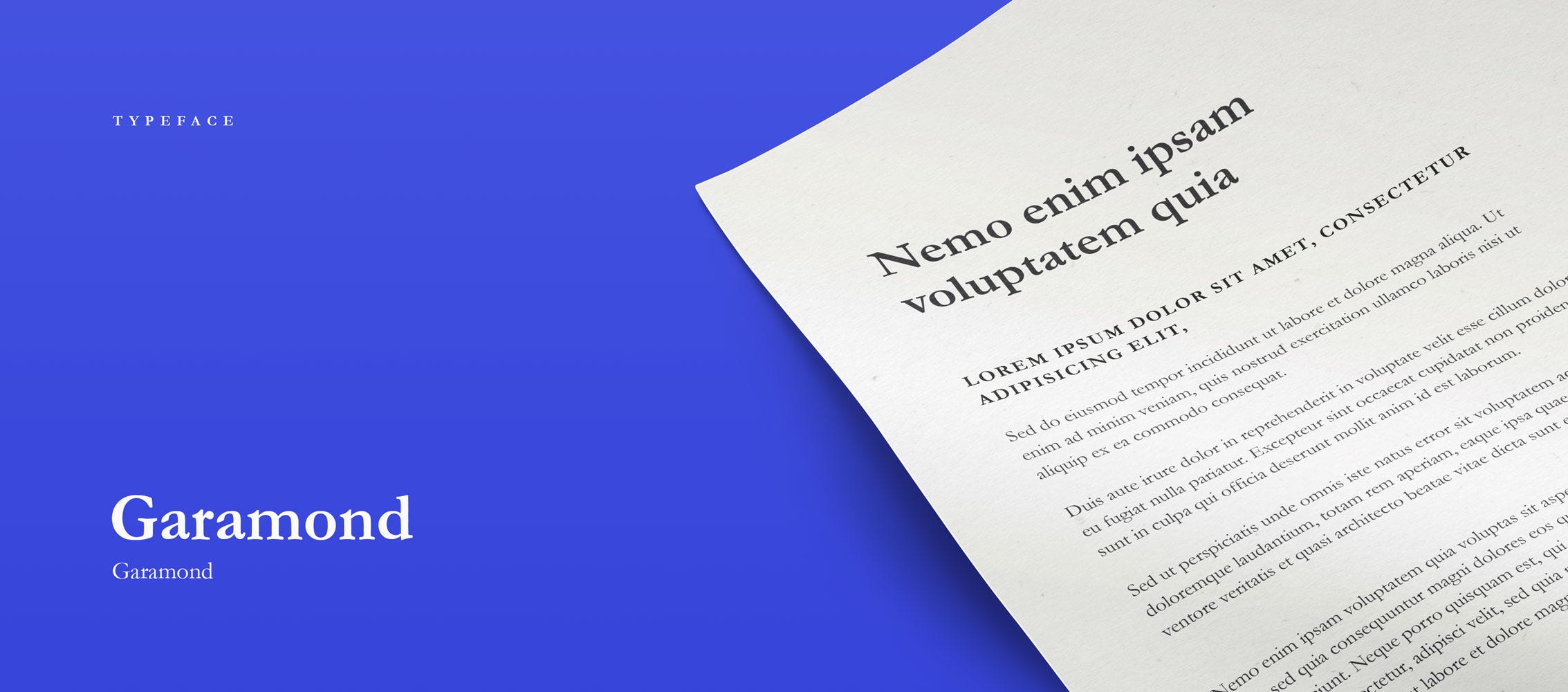
Basic bookprint fonts like arial verdana calibri and times new roman work well. Following conversations with a number of recruiters from different industries serif fonts were consistently recommended for cvs wanting to maintain a traditional look and sans serif fonts for a more modern look.
Cv font to use. As a general rule recruiters dont care which fonts you use as long as your resume is easy to read on a screen. Choosing a font is pretty straightforward but understanding how to write your resume what content to include what format you should usethat can get confusing in a hurry. There are a few fonts that work particularly well on a cv. Good luck with the job search. Fonts to use on your cv. We advise using a modern easy to read sans serif font which is unassuming inoffensive and easy on the eye.
To start always choose a font that is widely available. Times new roman is probably the most commonly chosen fonts for resumesthe very reason you should avoid it and why it appears on our worst list. When in doubt just keep it simple. These fonts wont give recruiters eyestrain when they are trying to decipher the content of your cv. Below we show you the best fonts for your resume to useand the resume fonts to stay away from. If you want to understand the simple formula for writing resumes that actually get results check out our complete guide.
The best resume font type to use. Good choices are arial calibri tahoma or verdana. The best resume fonts. You need something that can be read by most software so being too original isnt going to help you here. What is the best font to use for a cv. 10 modern ats friendly resume fonts an important reminder.
How to write a job winning resume with samples templates. Regardless of whether the font you choose is in the serif or sans serif font family the following fonts are considered some of the best to use according to resume and career experts. The optimal font size for your resume is anything between 10 and 12 points. However if you are applying to a position in graphic design or advertising where resume layout and design might be part of your assessment employers might be open to alternative fonts. Readability and professionalism are the most important factors when deciding the best font to use for your cv. Although cv font may seem like a trivial matter it can have a huge effect on your ability to land interviews and job offers.
The size you choose will be largely determined by how the font size impacts your resume layout. Below weve listed 10 modern resume fonts that are easy on the eyes and friendly to applicant tracking systems. Although they can be considered safe to use a little judicious use of formatting options can bring your cv alive and make it more inviting to read. Because it is best practice to keep your resume to one or two pages begin with size 10 font and experiment with sizing up if you think you have space.